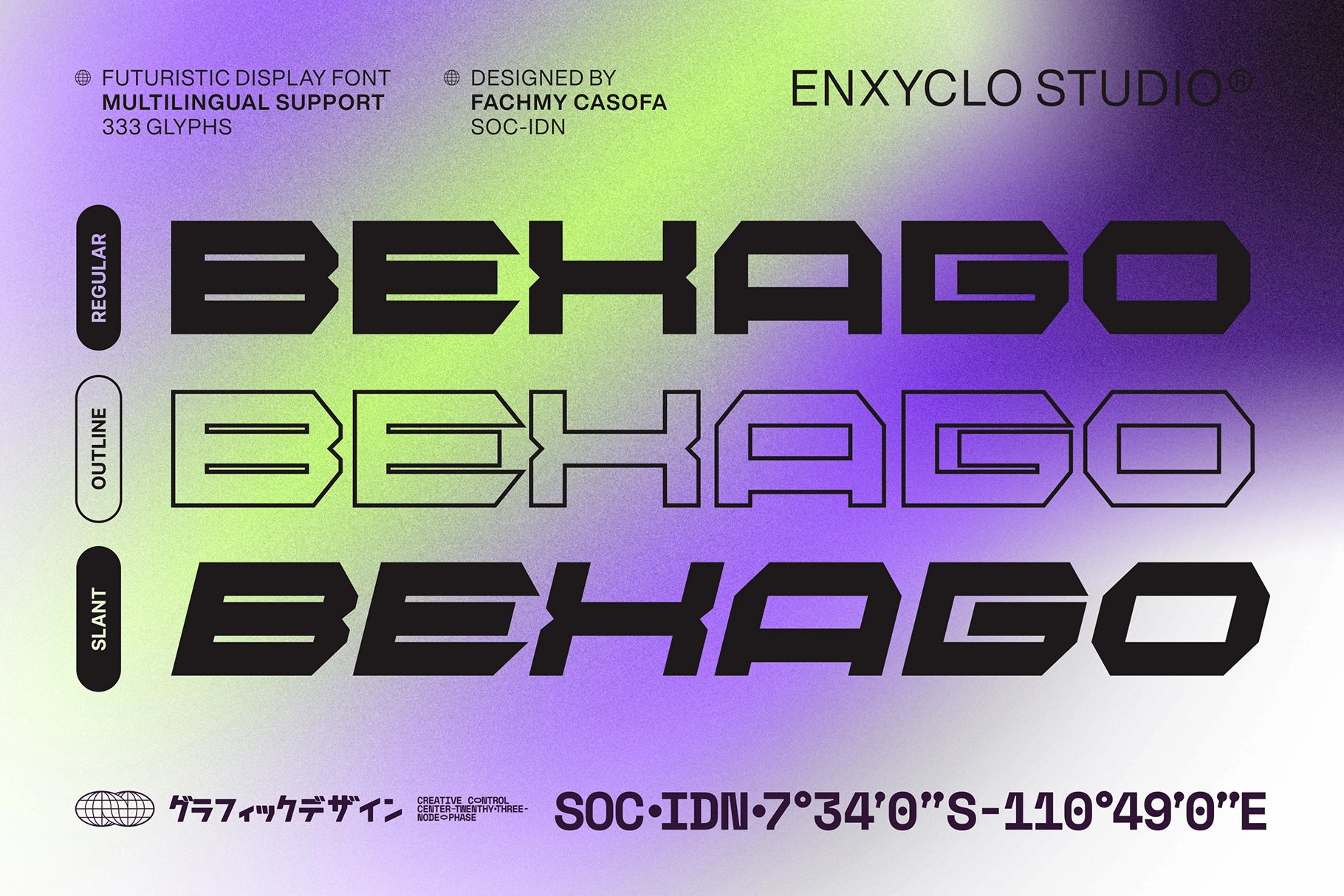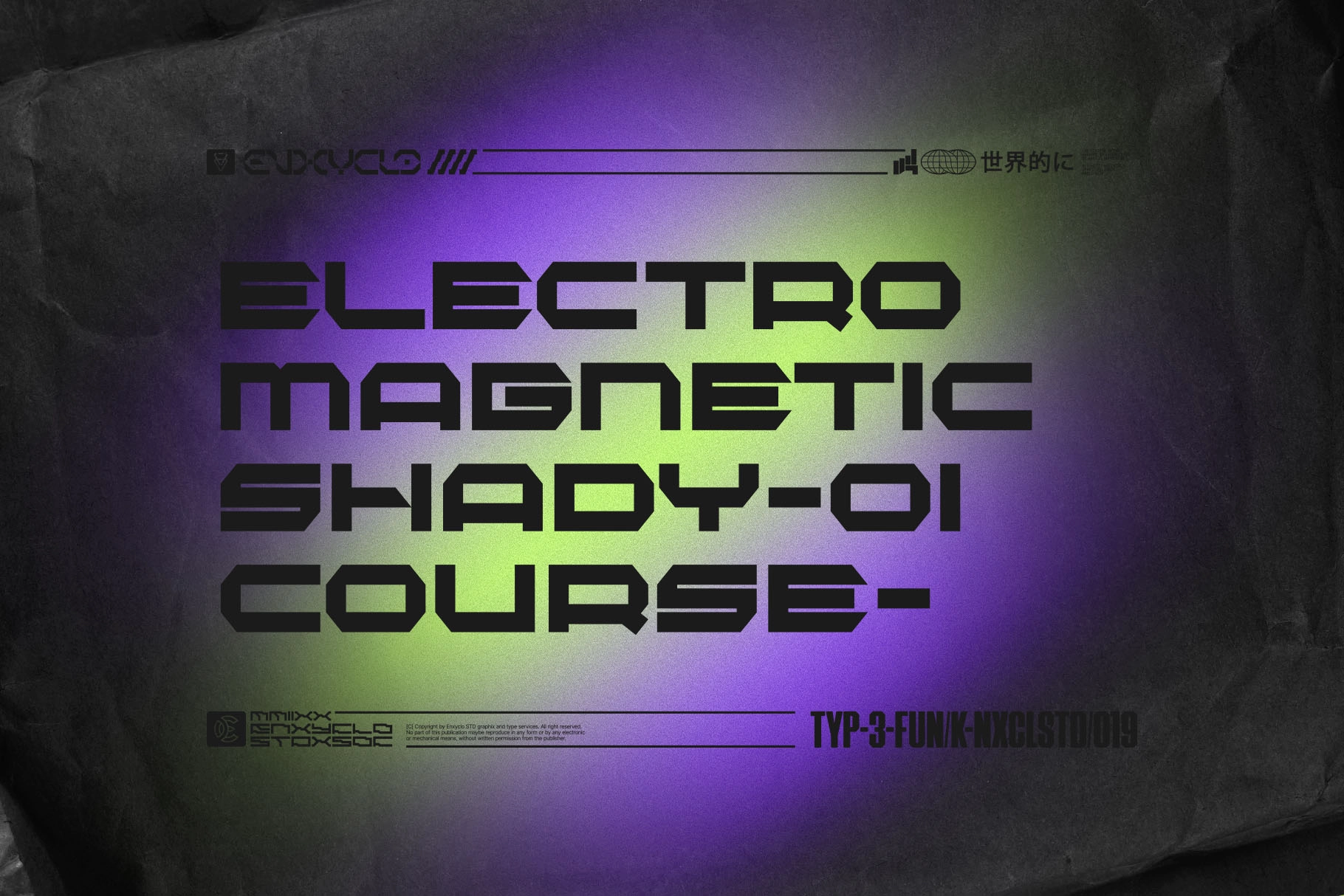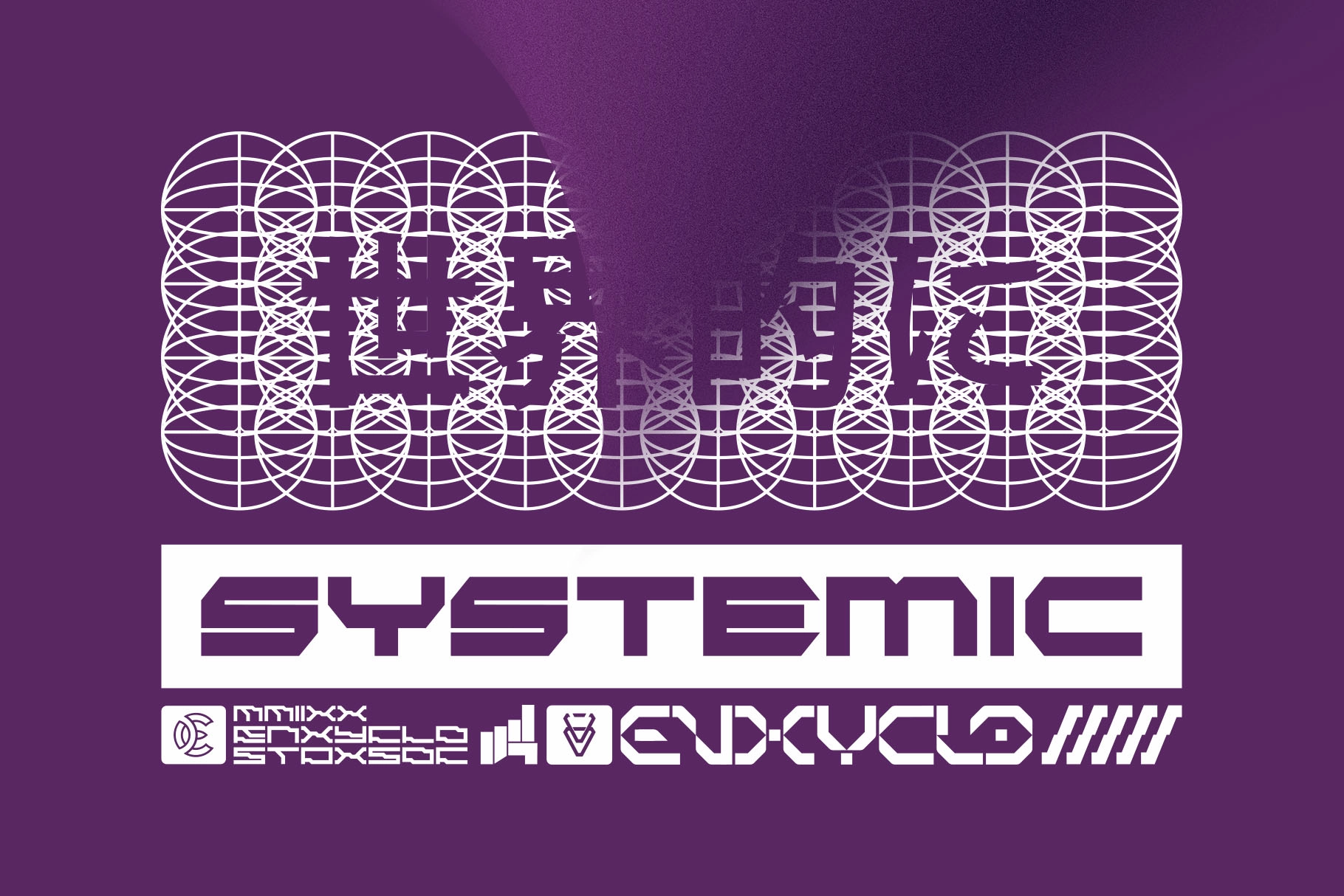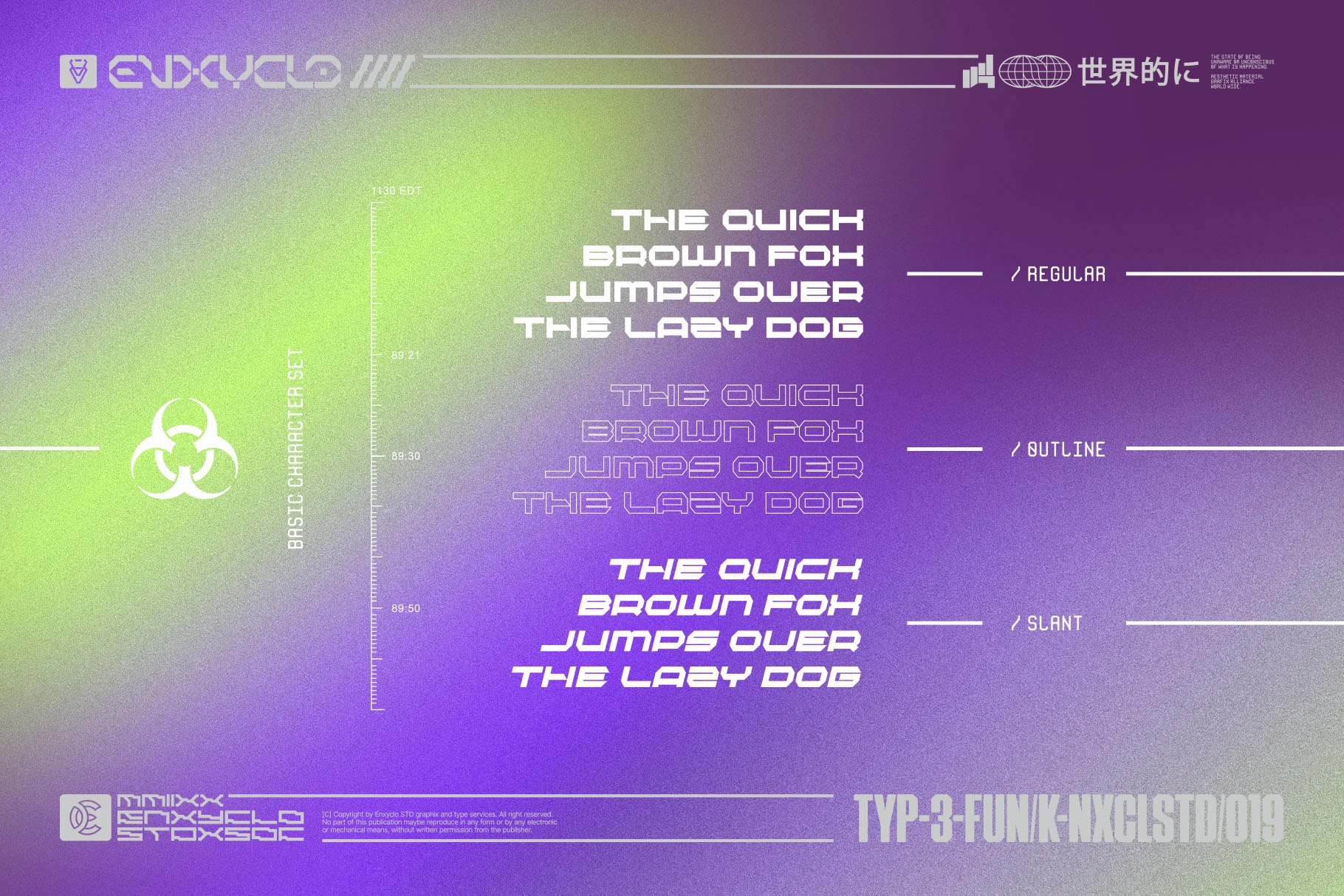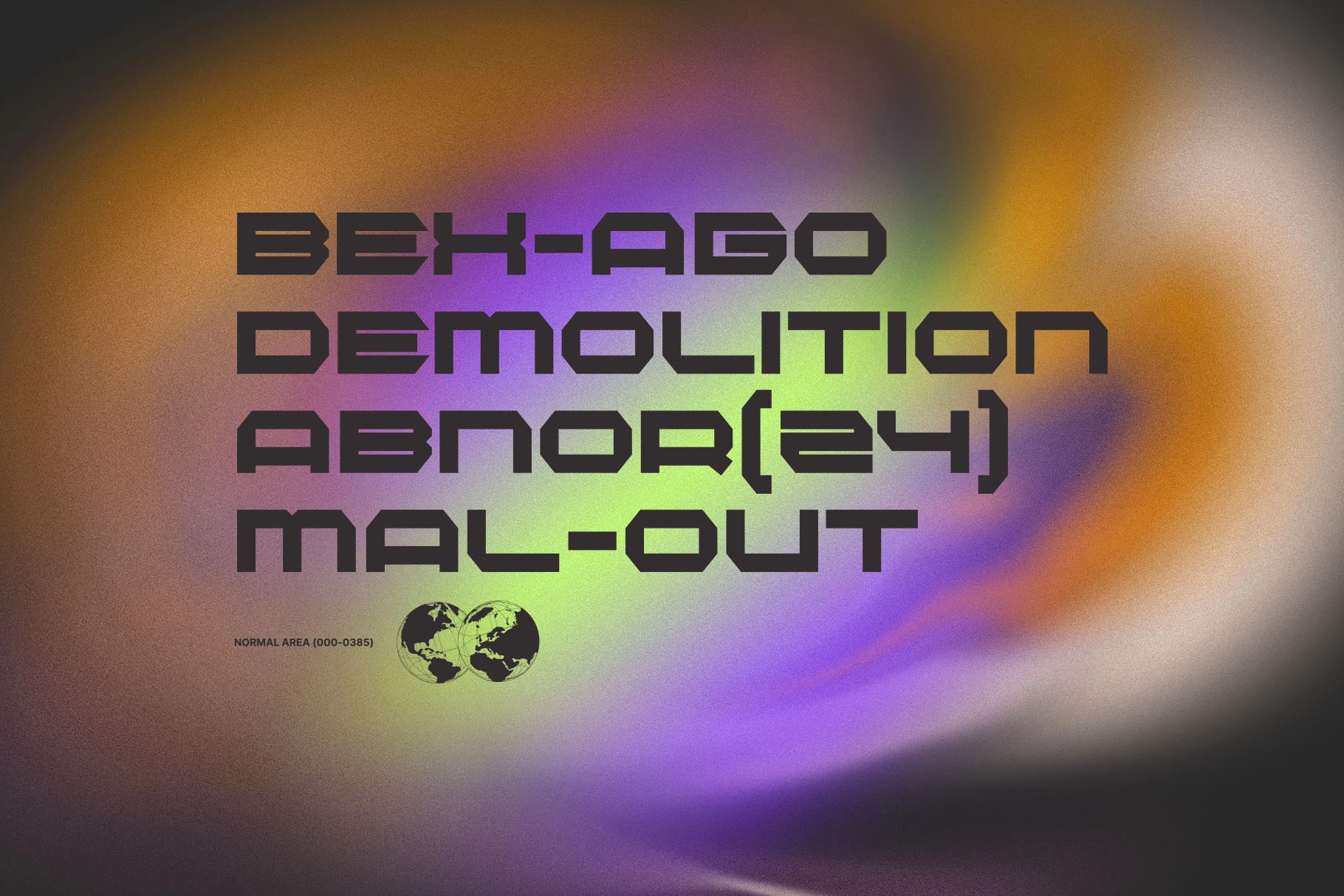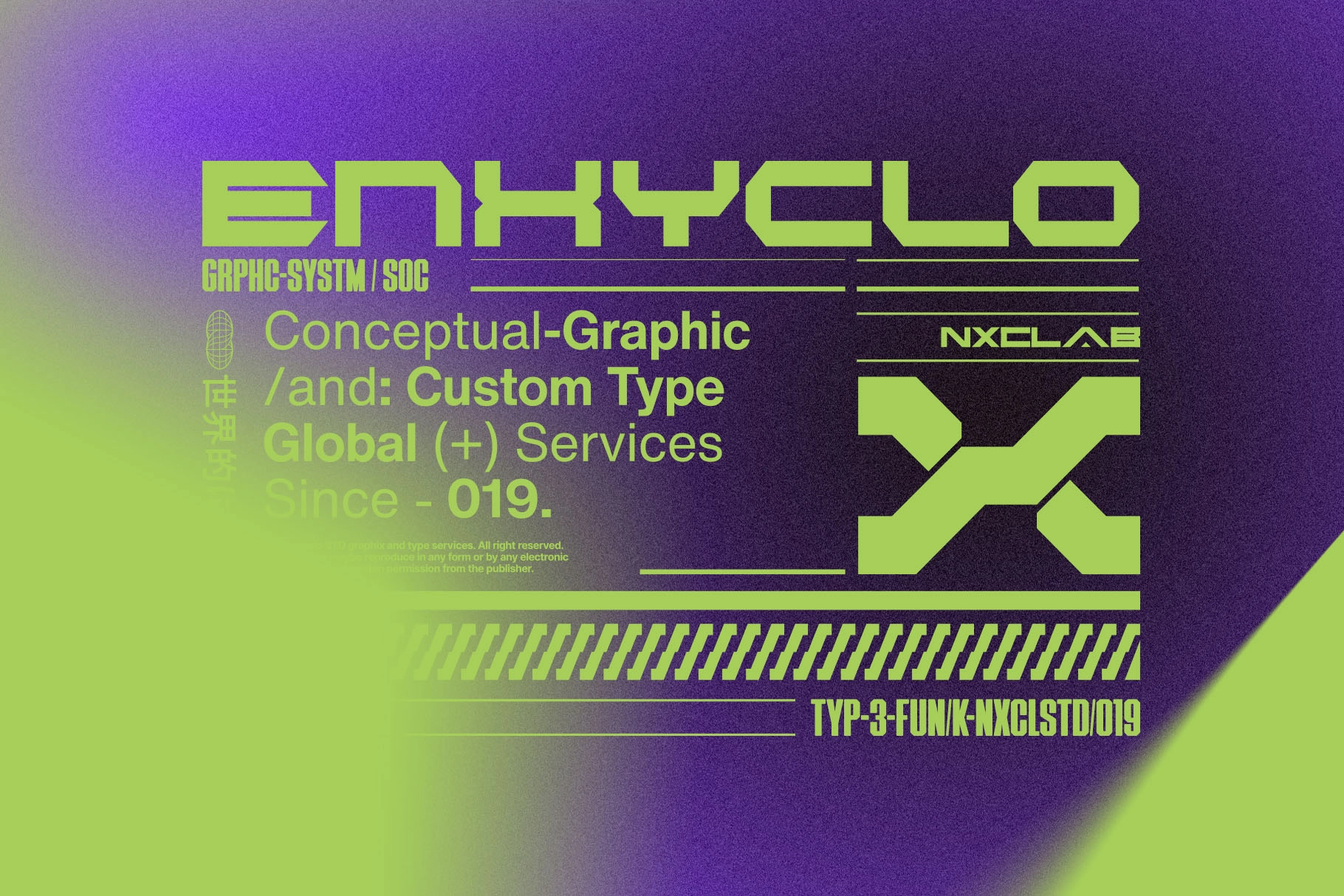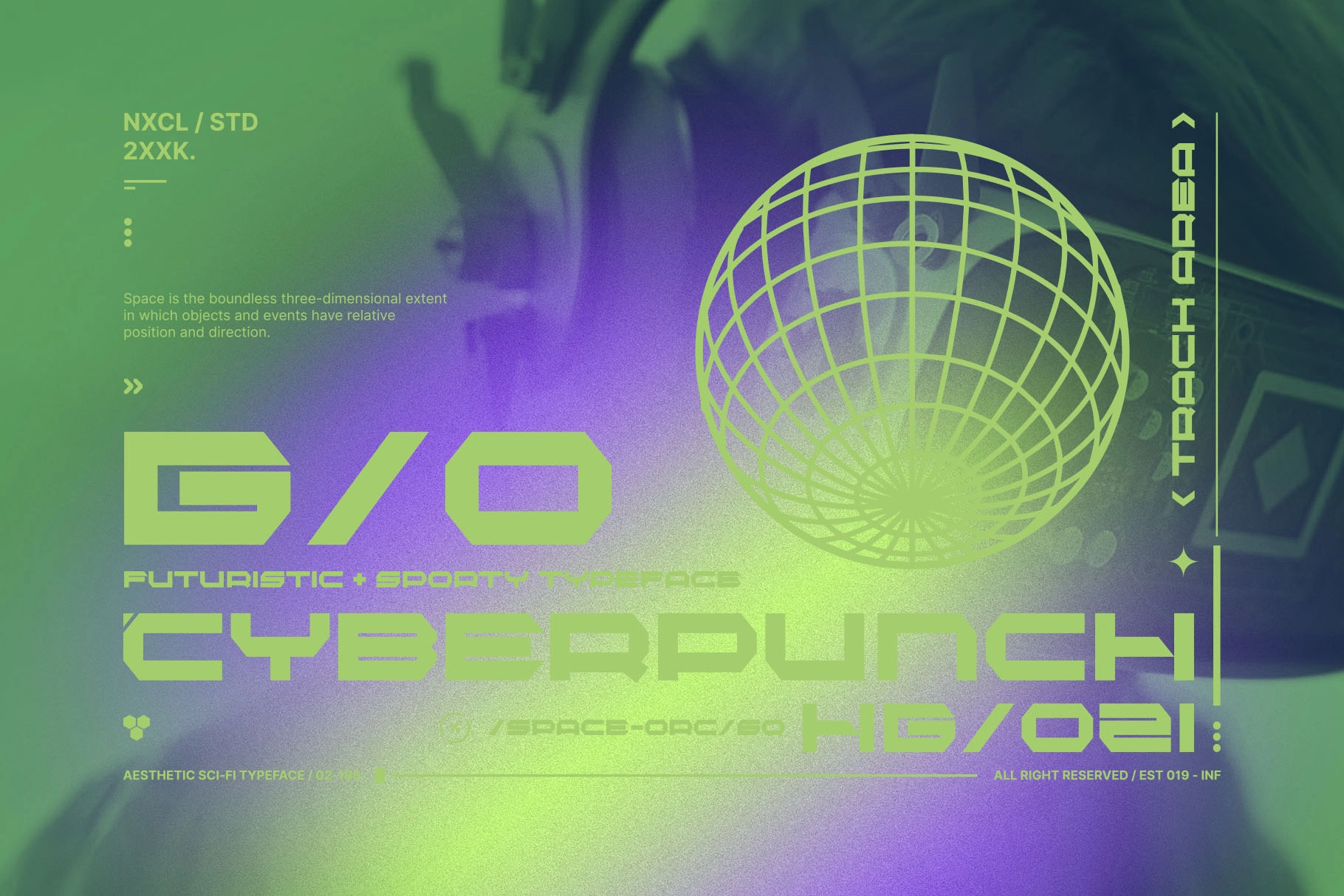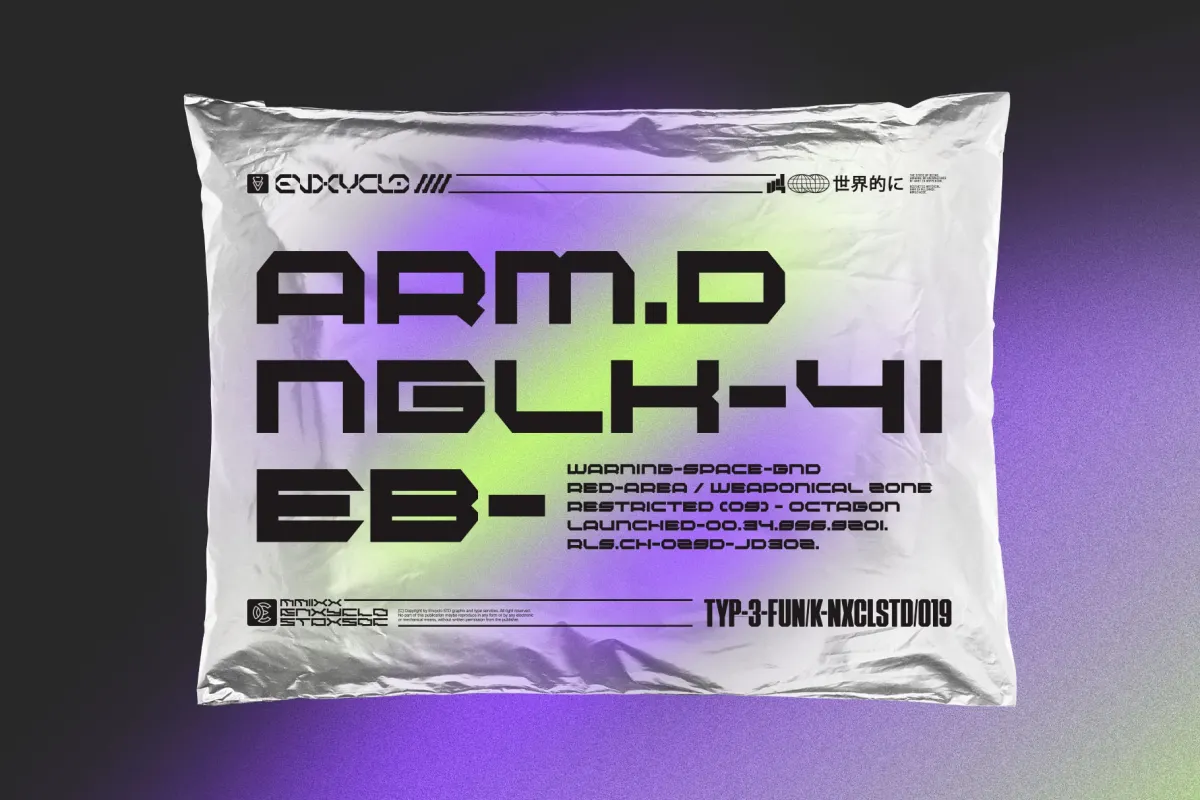
Bexago - Geometric Futuristic Font
Bexago - Geometric Futuristic Font is a bold display typeface built on clean geometric forms and a modern sci-fi aesthetic. Its sharp structure and futuristic styling create a strong visual impact, making it perfect for designs that demand attention and innovation.
Designed to elevate creative projects, Bexago works seamlessly across headlines, posters, branding, websites, magazines, streetwear, thumbnails, and logo design. Its distinctive shapes bring a high-tech, forward-thinking feel that helps your work stand out in any visual environment.
- 3 Styles: Regular, Outline & Slant
- 333 glyphs per style (999 total)
- Uppercase characters